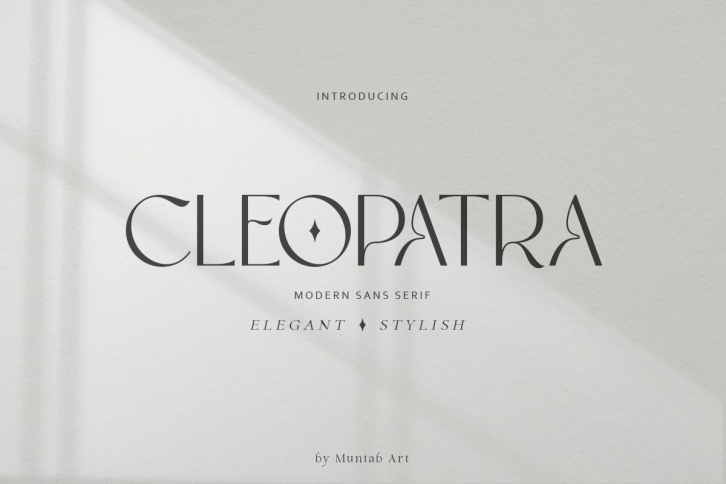
Cleopatra is a great font that was designed by Muntab Art. Imagine the amount of combinations you can create using this font! The archive is 1.60 MB and it was released on November 11, 2021. Cleopatra looks beautiful on wedding invitations, greeting cards, logos, posters, labels, t-shirt designs, logos, business cards and is perfect for use in ink or watercolor works, fashion, magazines, packaging and food menus, children's books and more!